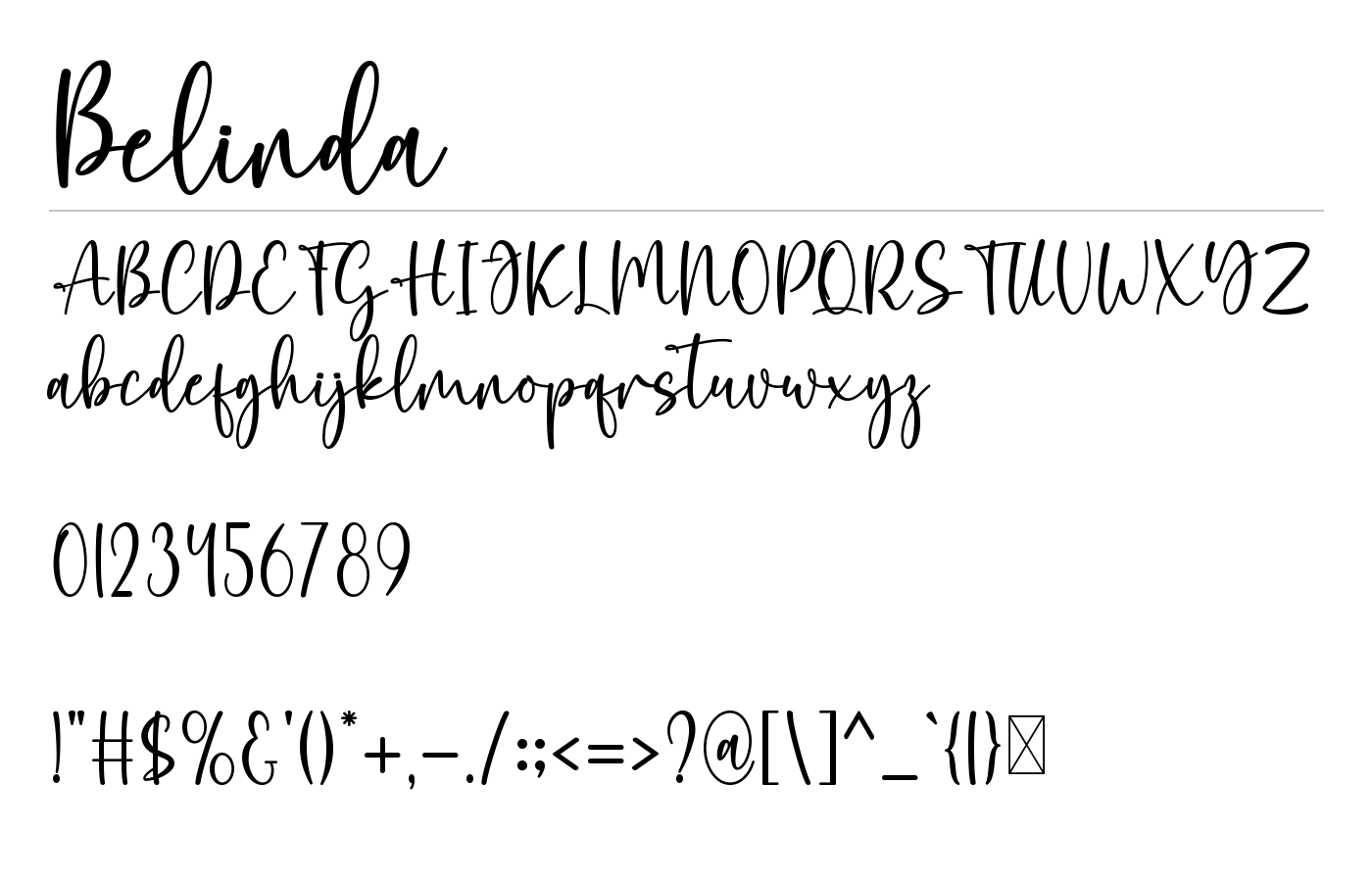
Belinda is a playful, elegant script font with a handwritten feel, featuring smooth, flowing strokes and a light weight that adds charm and approachability. Its slender, tall letterforms and slightly quirky character shapes make it ideal for creative branding, invitations, and stylish headlines where a personal, warm touch is desired. This font works beautifully in fashion, lifestyle, and boutique contexts, bringing a friendly yet refined personality to any design.
Belinda Font
About Belinda Font